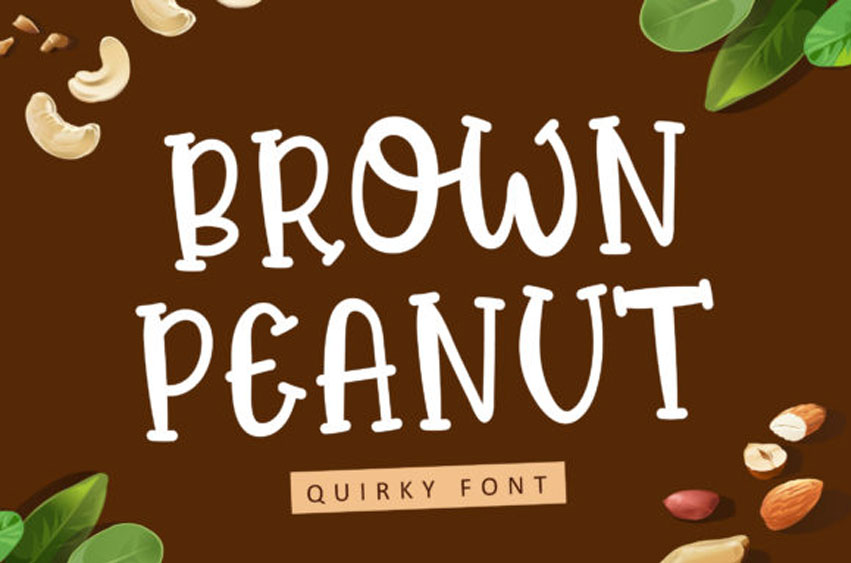
Brown Peanut Font
Brown Peanut Font is a cute and colorful display font.
It embodies playfulness and authenticity and is the perfect choice for any children’s activity or school project.